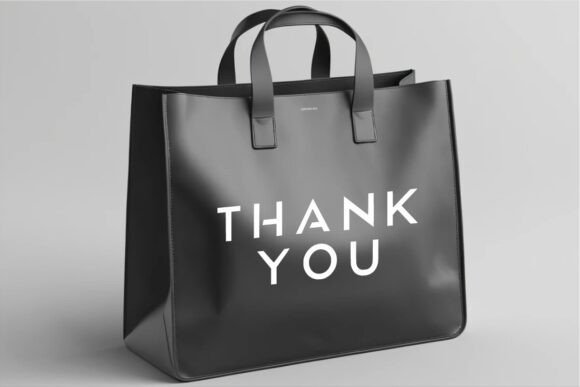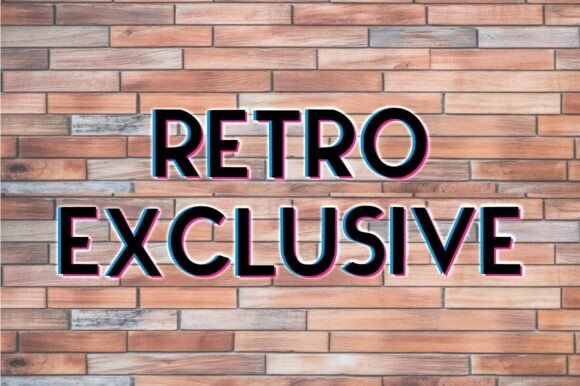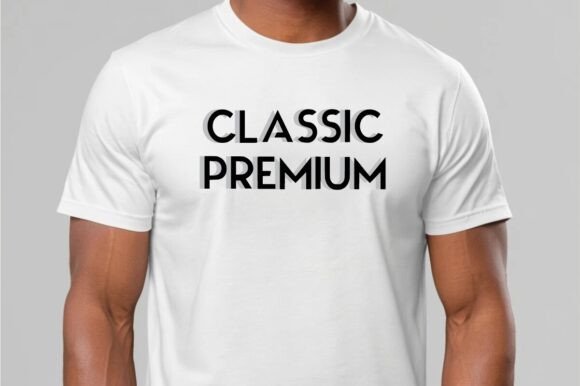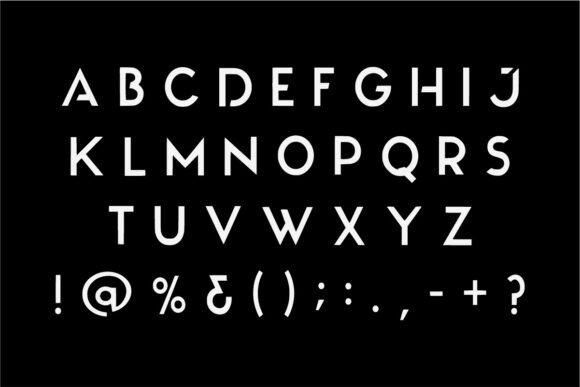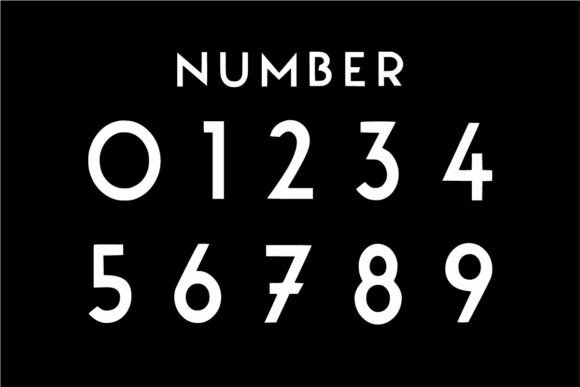
Introduction to Harvest Moeses Font
As a designer, there’s nothing quite like the thrill of bringing a creative project to life. The blank canvas stares back at you, waiting for the perfect words, the ideal layout, and the perfect font. For many, that perfect font is the elusive key to unlocking the essence of their design. And, for those seeking a timeless, vintage-inspired typeface, the search is over with the introduction of the Harvest Moeses Font.
Imagine yourself immersed in a world of classic simplicity, where elegance and sophistication reign supreme. This is the world of Harvest Moeses Font – a free download that’s sure to elevate any design project to new heights. With its high-quality, transparent background, this versatile font is the ultimate design resource for creatives looking to make a statement.
Key Features of Harvest Moeses Font
- High-quality design resource perfect for creative projects requiring a unique touch.
- Features a transparent background, making it ideal for use on images or other design elements.
- Includes a wide range of glyphs and characters, ensuring comprehensive support for various languages.
- Designed with a modern aesthetic, suitable for a variety of creative projects, from digital art to print materials.
Honest Review: Harvest Moeses Font
As a designer, I’m always on the lookout for high-quality design resources to elevate my creative projects. I recently had the chance to try out the Harvest Moeses Font, and I’m excited to share my honest review.
What works well: ✨ The Harvest Moeses Font has a beautiful, rustic feel that’s perfect for autumn-themed projects or anything that needs a warm, earthy vibe. The font is highly customizable, with a range of weights and styles to choose from. I also appreciate the transparent background, which makes it easy to layer over other design elements.
- Unique, rustic design perfect for autumn-themed projects
- Highly customizable with multiple weights and styles
- Transparent background makes it easy to layer over other design elements
Getting the Most Out of Harvest Moeses Font
To get the most out of the Harvest Moeses Font, experiment with different font sizes, colors, and styles to create visually appealing designs. You can also use the font in combination with other design elements, such as images and graphics, to create a unique and eye-catching design.
The Harvest Moeses Font is suitable for a wide range of creative projects, including social media graphics, posters, presentations, and documents. It is also ideal for use in branding and identity design, as it offers a unique and distinctive look that can help to establish a brand’s identity.